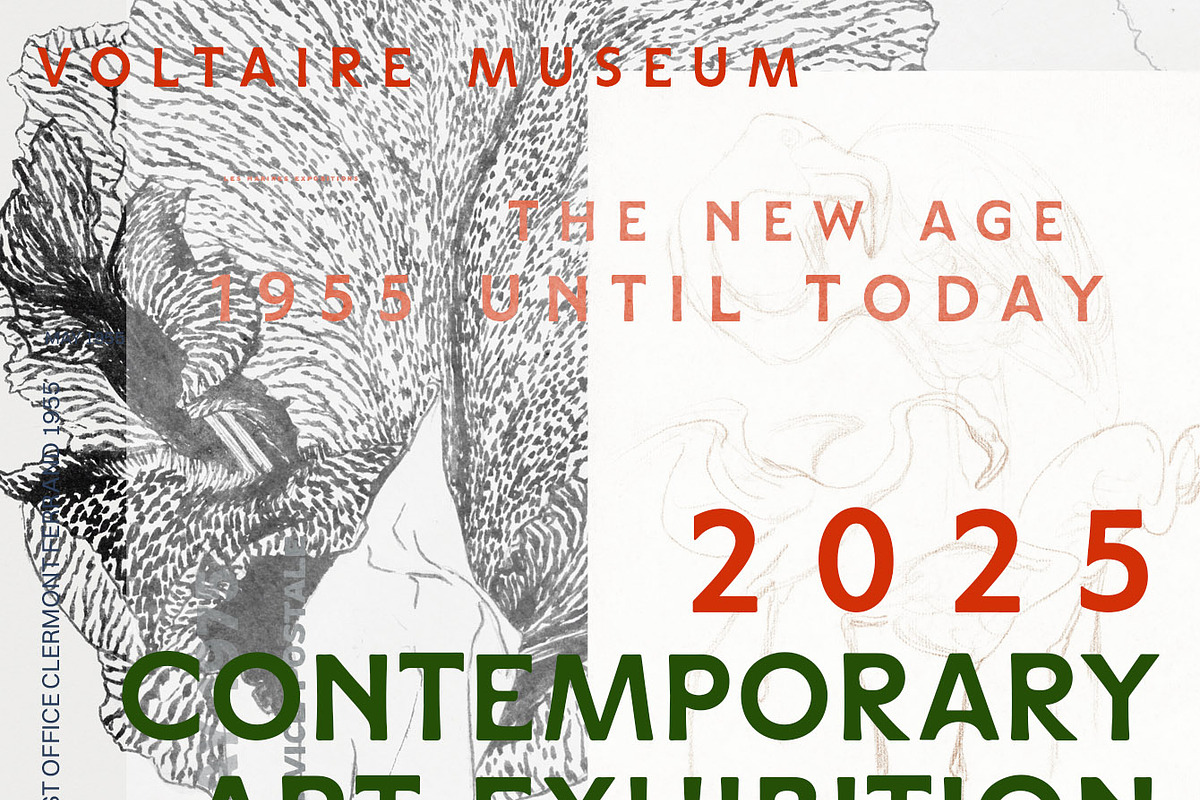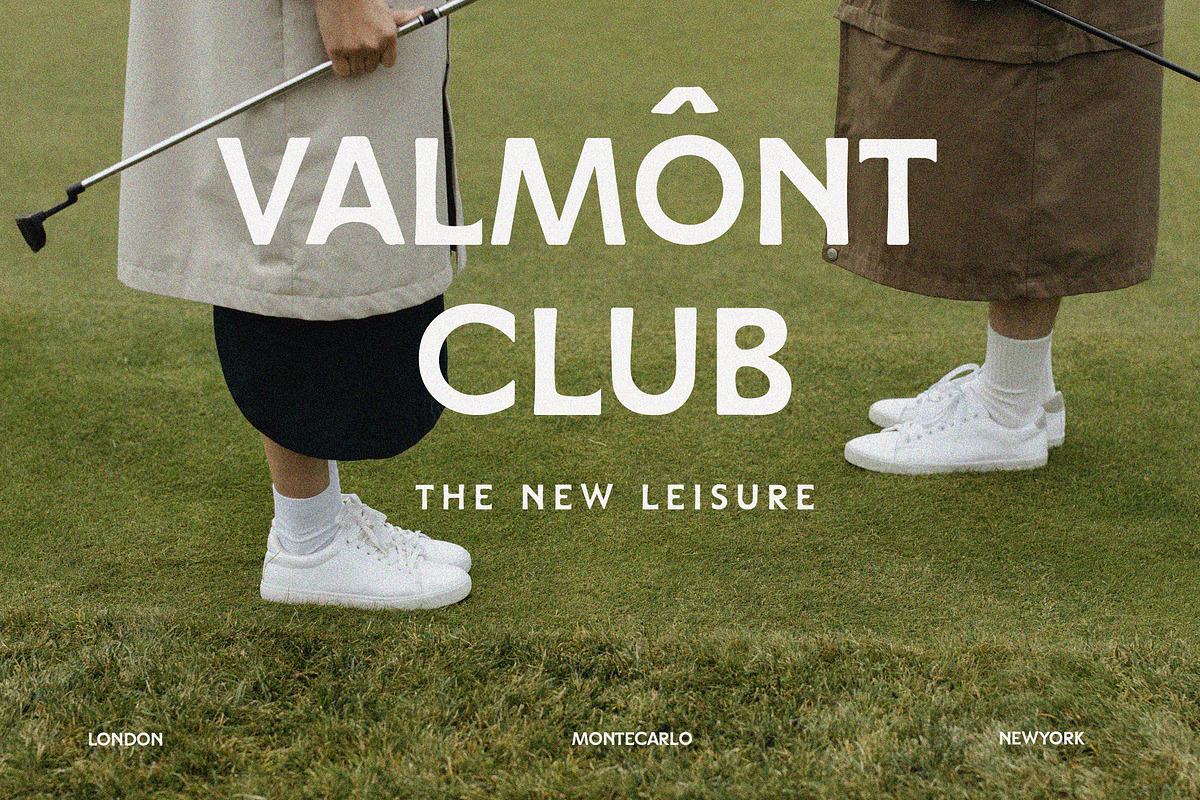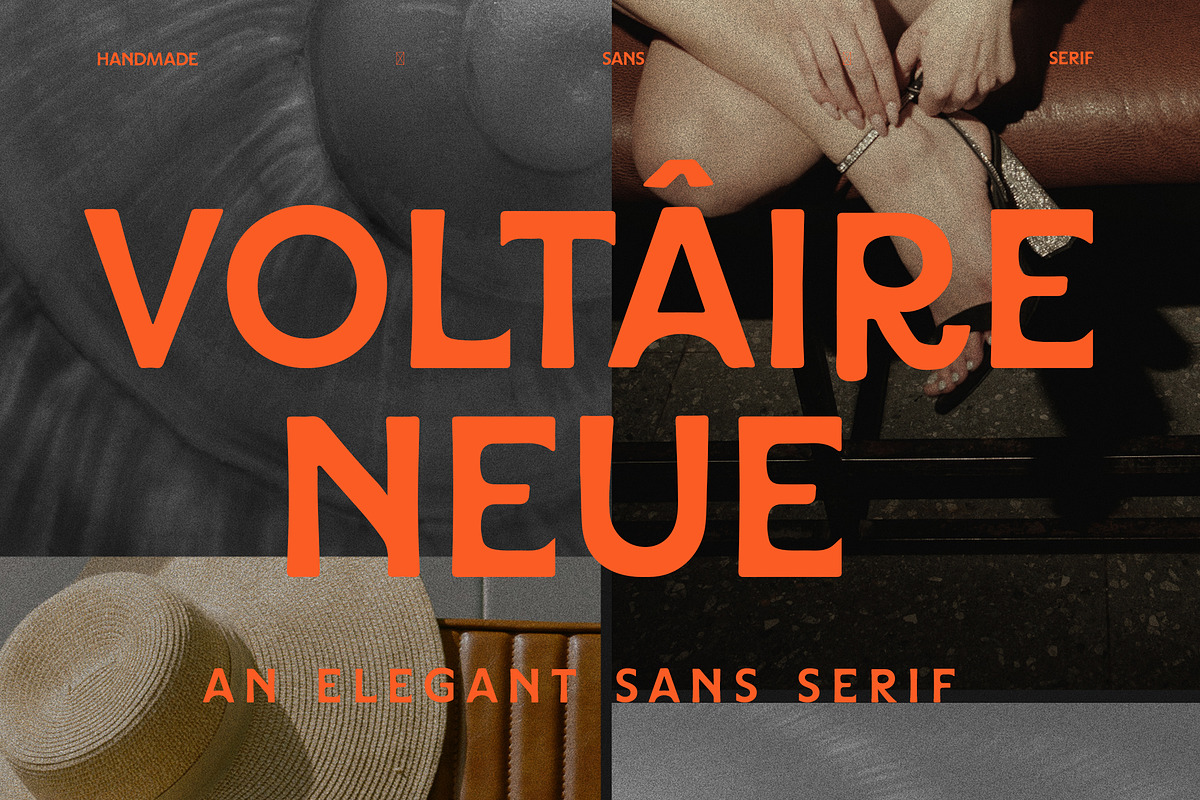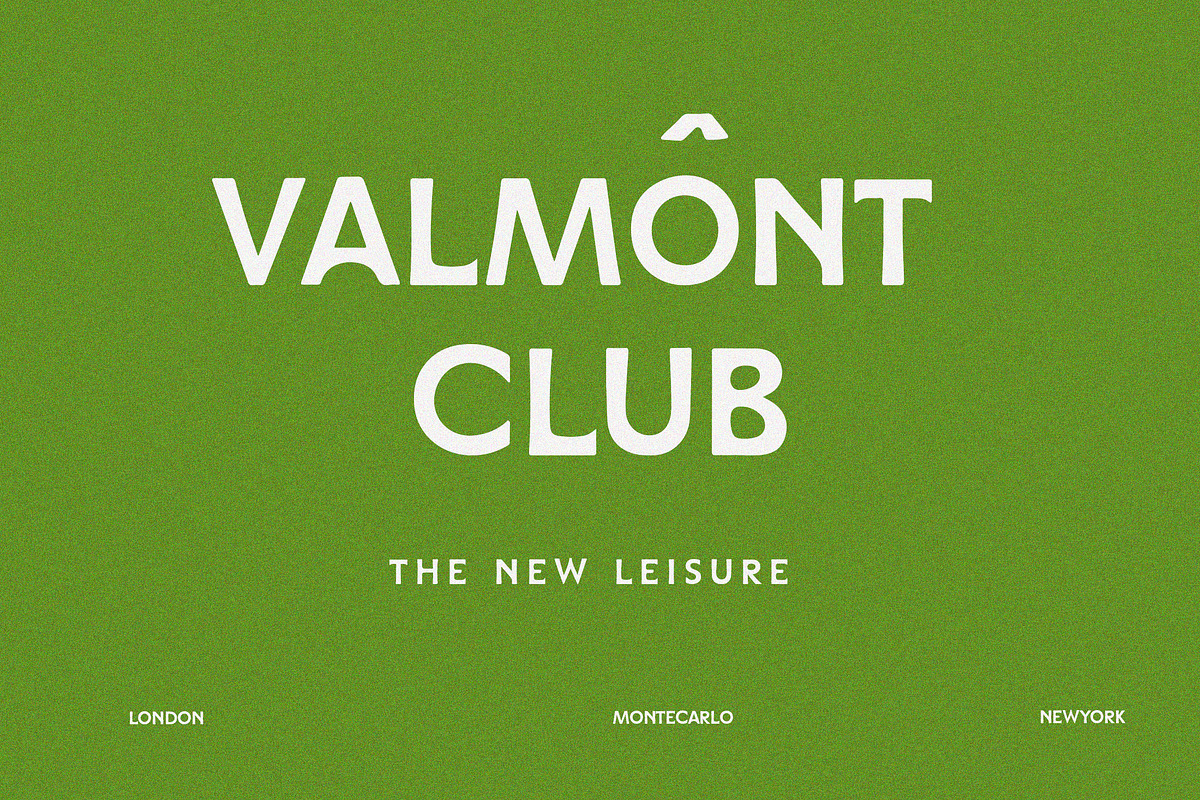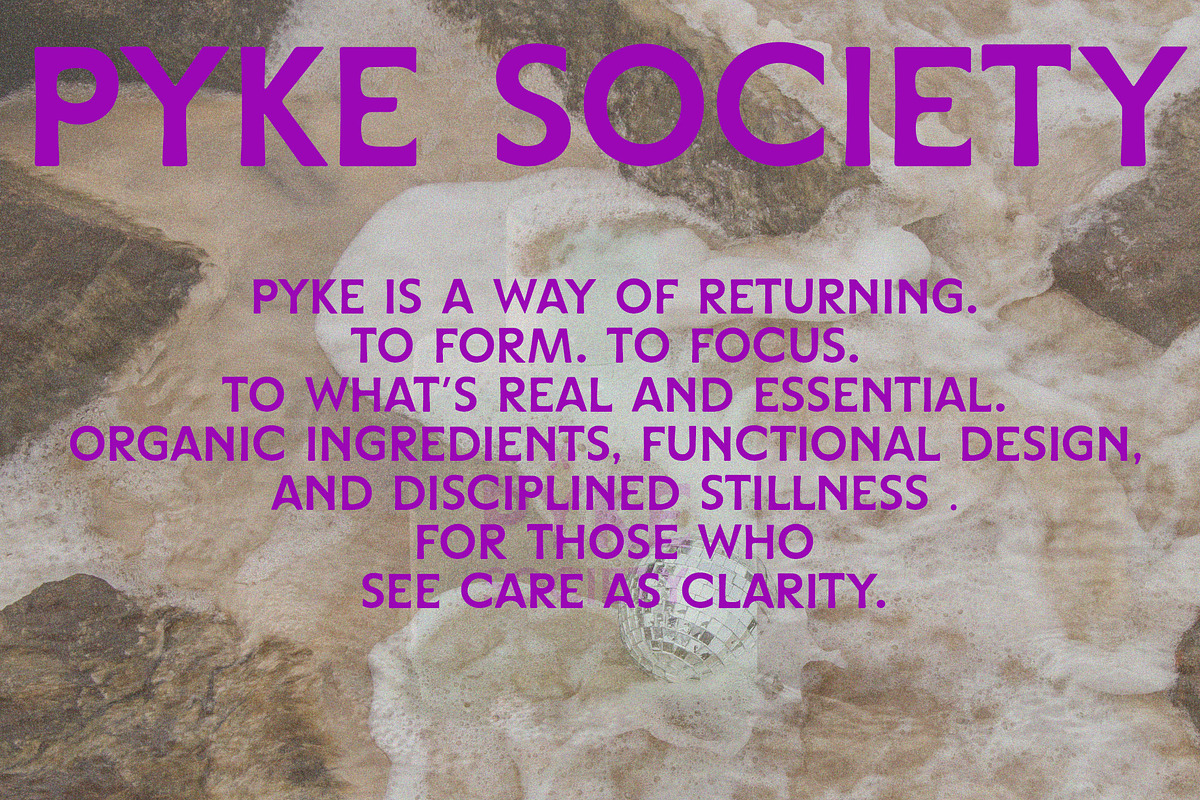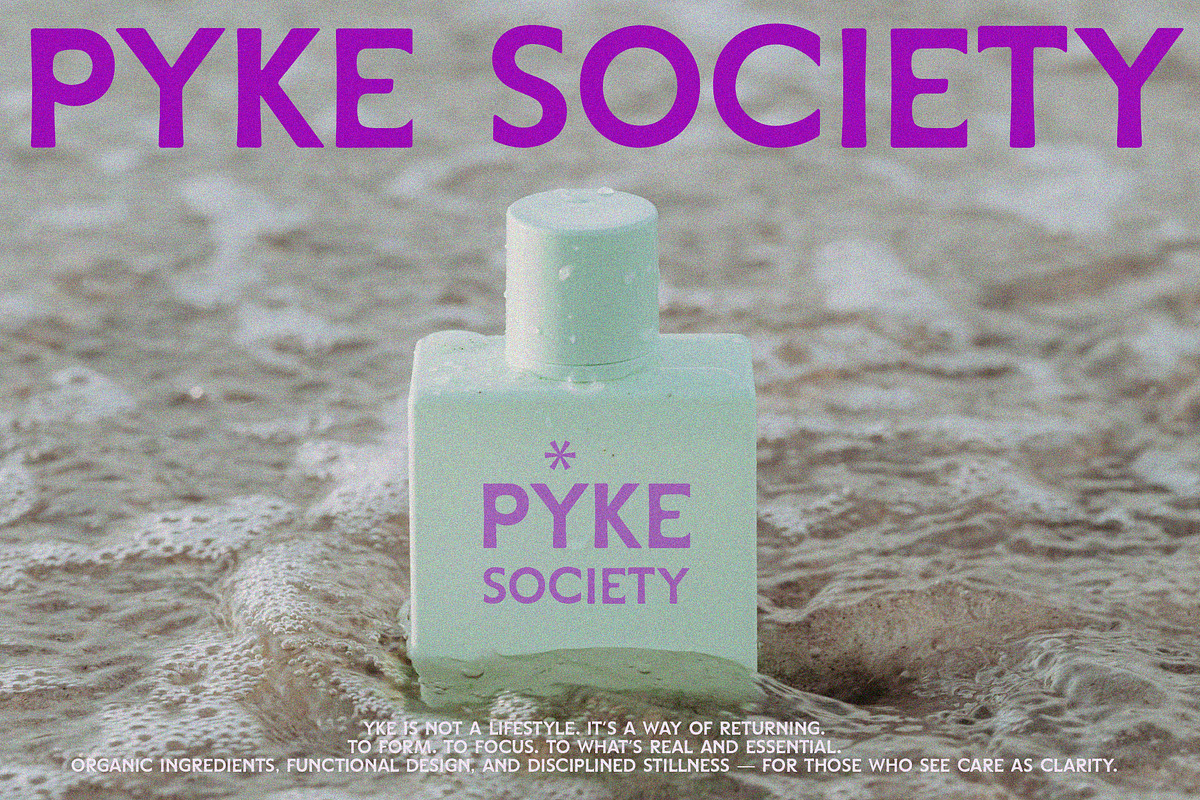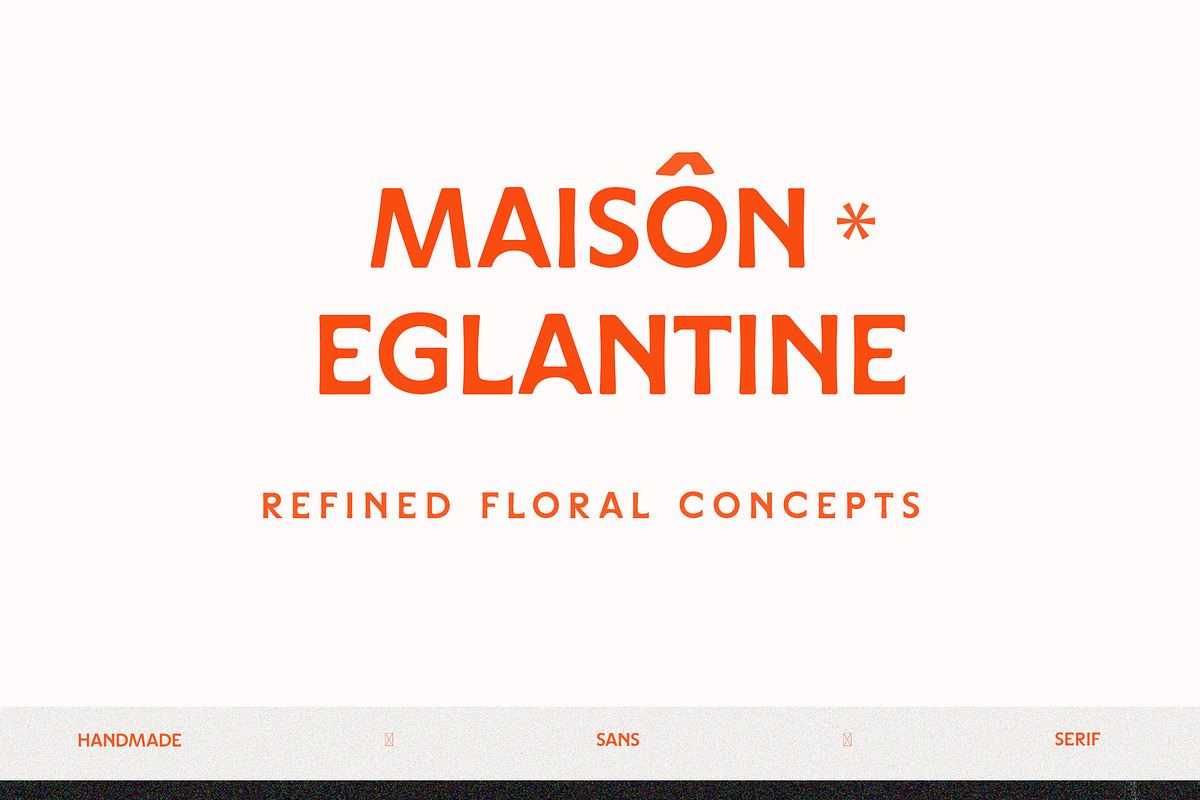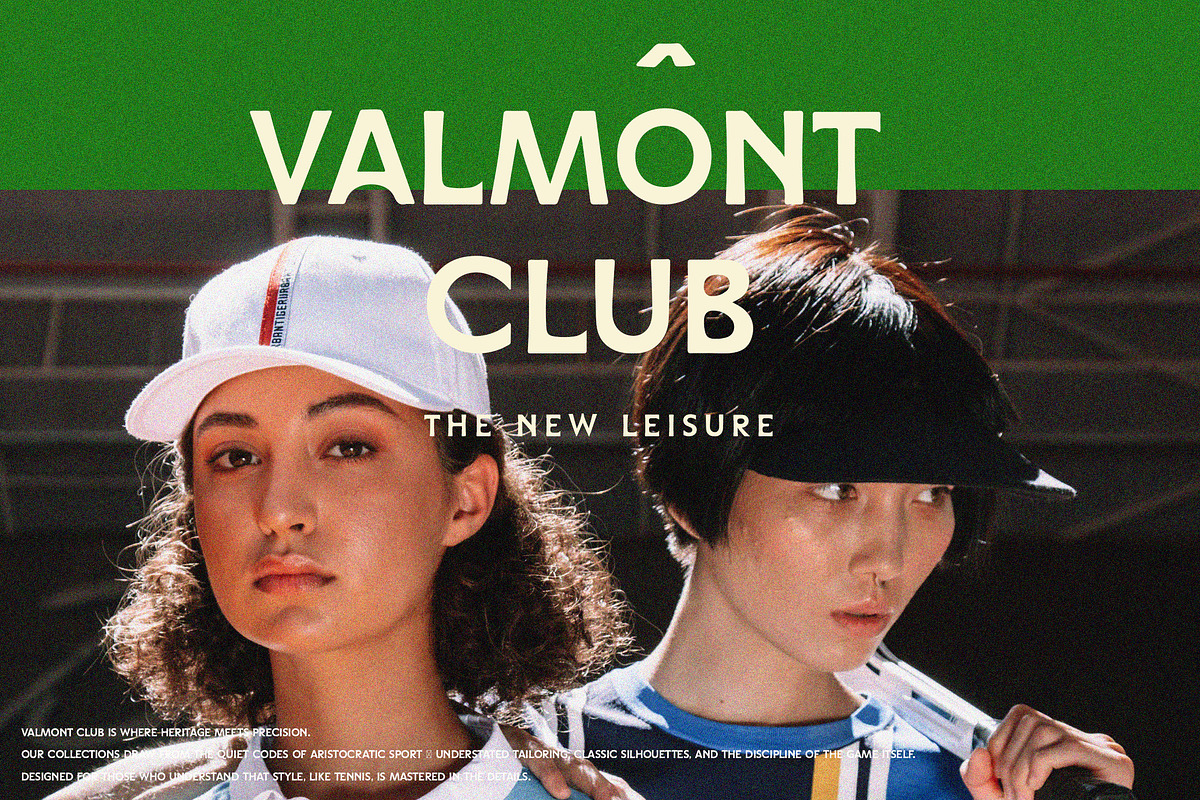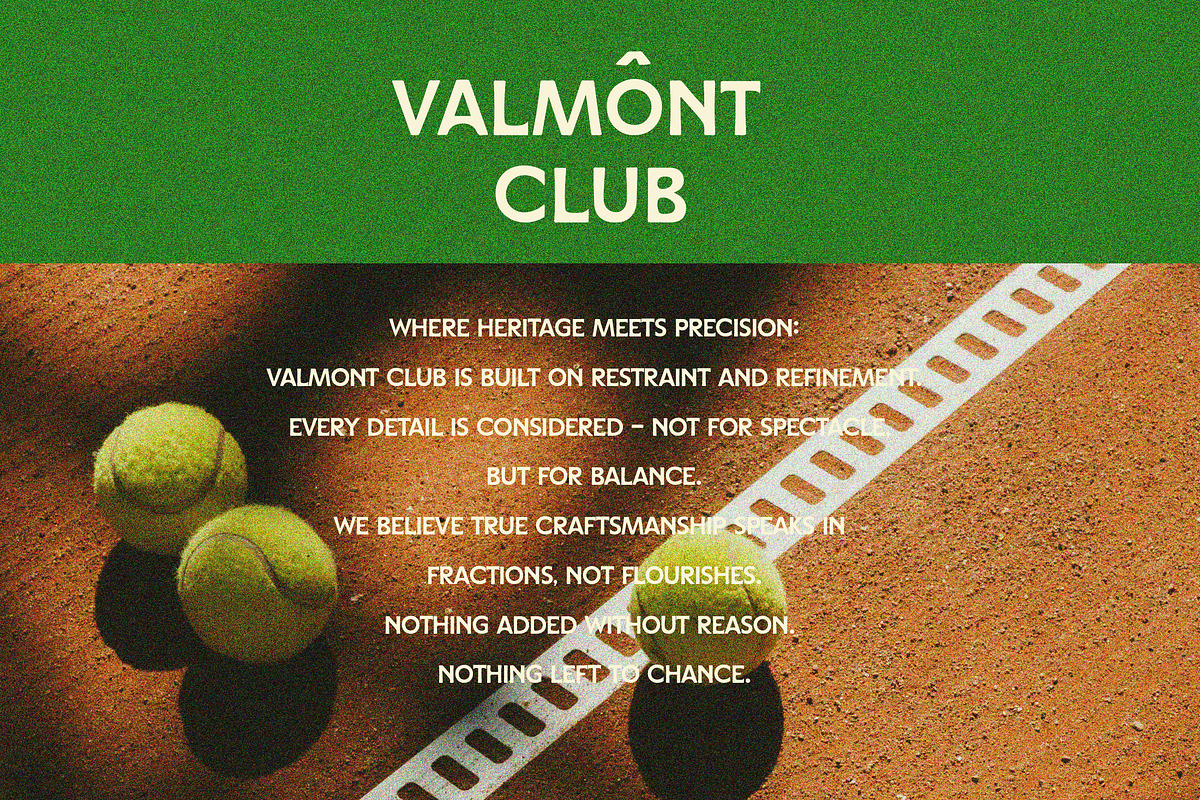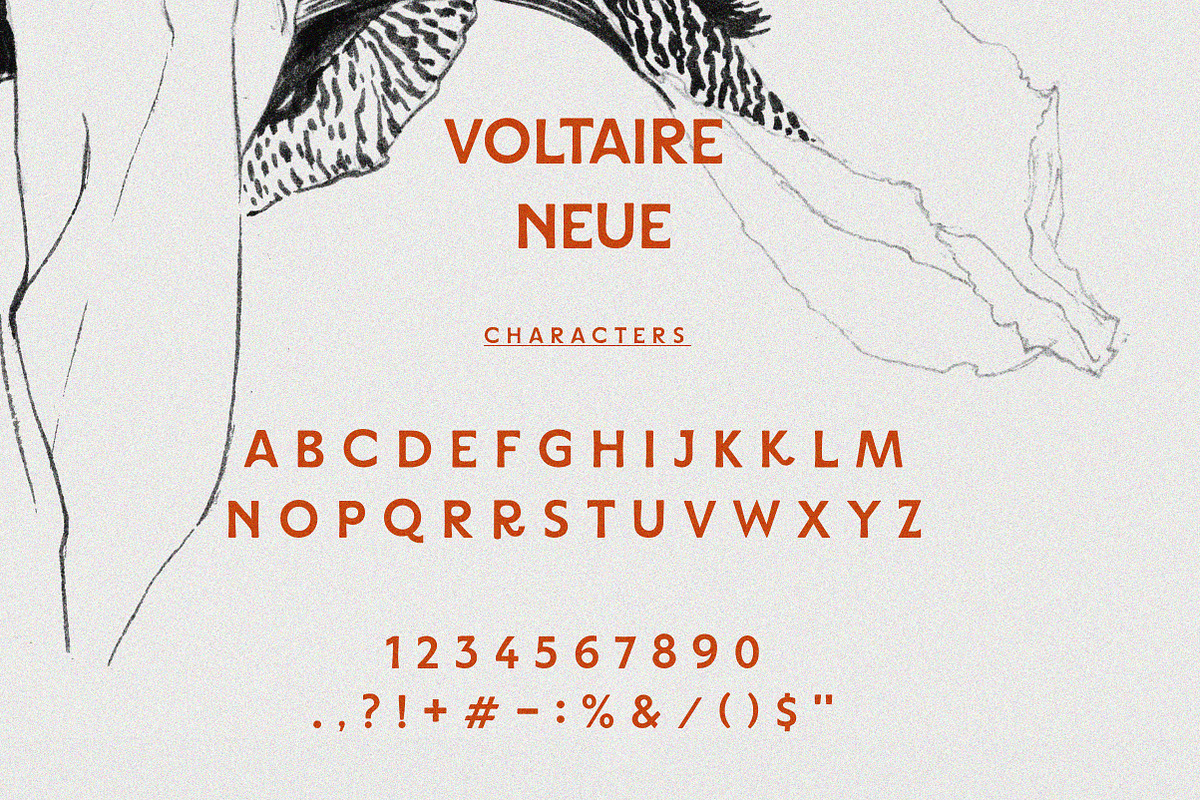
Geometric Editorial Bold Sans Serif
Voltaire Neue is an elegant, sophisticated editorial font with an on-trend twist. This high-contrast, geometric sans-serif combines the clarity and clean structure of mid-century sans fonts with refined proportions and subtle sophistication. The wide spacing, sharp terminals, and modular letterforms give it a calm authority that is ideal for fashion, luxury branding, magazines, and cultural content.
A perfectly classy finish for high-end branding, upscale website, editorials, packaging design, minimalist design project, exhibition poster, artisan designs and aesthetic social media posts.
*A chic, modern yet timeless display font made for headlines and bold texts that stand out from the noise. Happy creating!